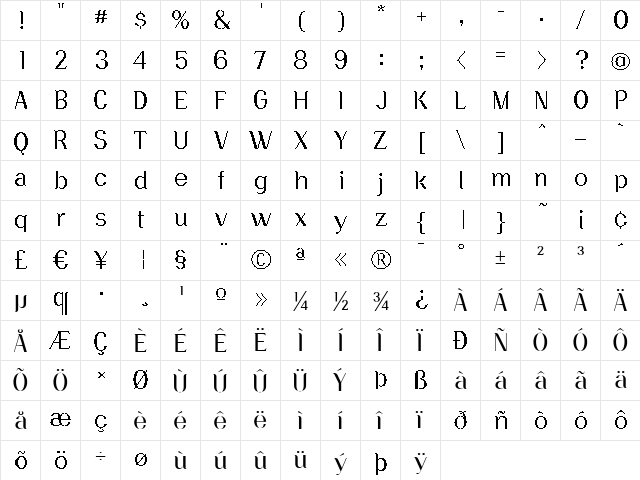
Vandermark Regular
Design Context for Vandermark Typeface
Vandermark takes a measured approach to typography — its balanced proportions and neutral character make it a reliable workhorse for both digital and print work.
Pro Tip: Use Vandermark in both headline and body roles to test its range before committing to a single application.